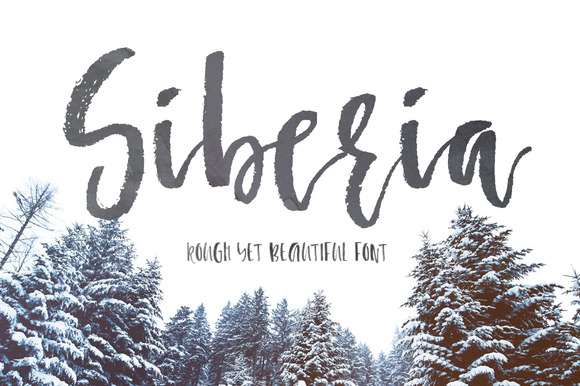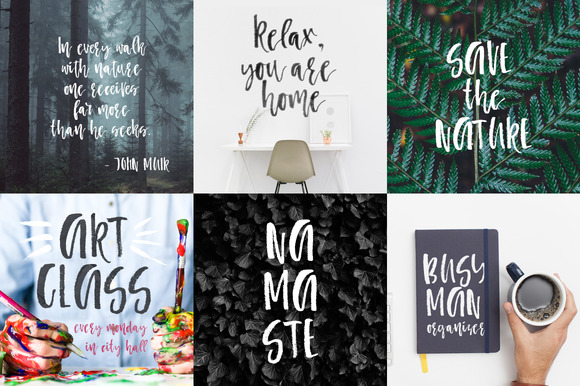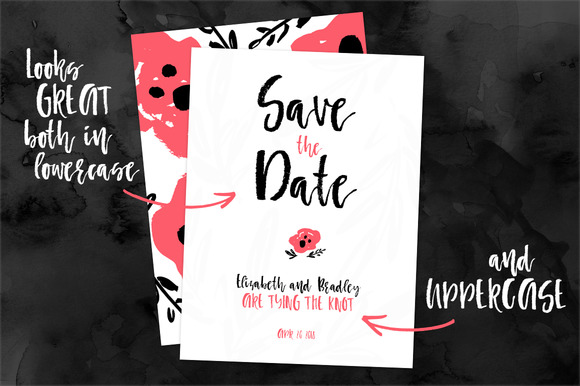
About Siberia Font
“Siberia,” a delightful handwritten typeface from Favete Art, injects a warm and personal touch into any design project. With its unique style and charming appeal, “Siberia” adds a distinctive flair that captivates audiences and breathes life into your creations.
Crafted with care by Favete Art, “Siberia” stands out for its hand-drawn aesthetic, reminiscent of casual handwriting. Each character bears the authentic imperfections and nuances of human penmanship, lending an organic and genuine feel to your designs.
The beauty of “Siberia” lies in its versatility, making it suitable for a wide range of applications. Whether you’re designing branding materials, invitations, social media graphics, or packaging, “Siberia” brings a sense of warmth and personality to every project.
One of the key strengths of “Siberia” is its ability to evoke emotion and connection. Its handwritten style adds a personal touch that resonates with audiences, fostering a sense of authenticity and intimacy. Whether used for heartfelt messages, or playful branding, “Siberia” creates a genuine connection with viewers.
In branding and marketing, “Siberia” offers a unique opportunity to stand out from the crowd. Its hand-drawn charm adds a refreshing twist to logos, product packaging, and promotional materials, helping brands convey a sense of approachability and sincerity.
For invitations and stationery, “Siberia” infuses your designs with warmth and character, setting the tone for memorable events and celebrations. Whether it’s wedding invitations, greeting cards, or party flyers, “Siberia” adds a personal touch that delights recipients and sets your designs apart.
On social media platforms, “Siberia” shines as a font choice for engaging and authentic content. Its handwritten style adds personality to posts, captions, and stories, making your brand more relatable and memorable in the digital landscape.
In summary, “Siberia” by Favete Art is more than just a typeface—it’s a tool for expressing creativity, fostering connection, and making a lasting impression. With its charming handwritten style and versatile appeal, “Siberia” transforms ordinary designs into heartfelt expressions of artistry and emotion.